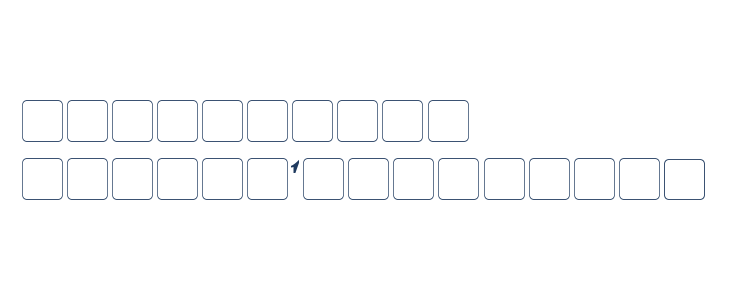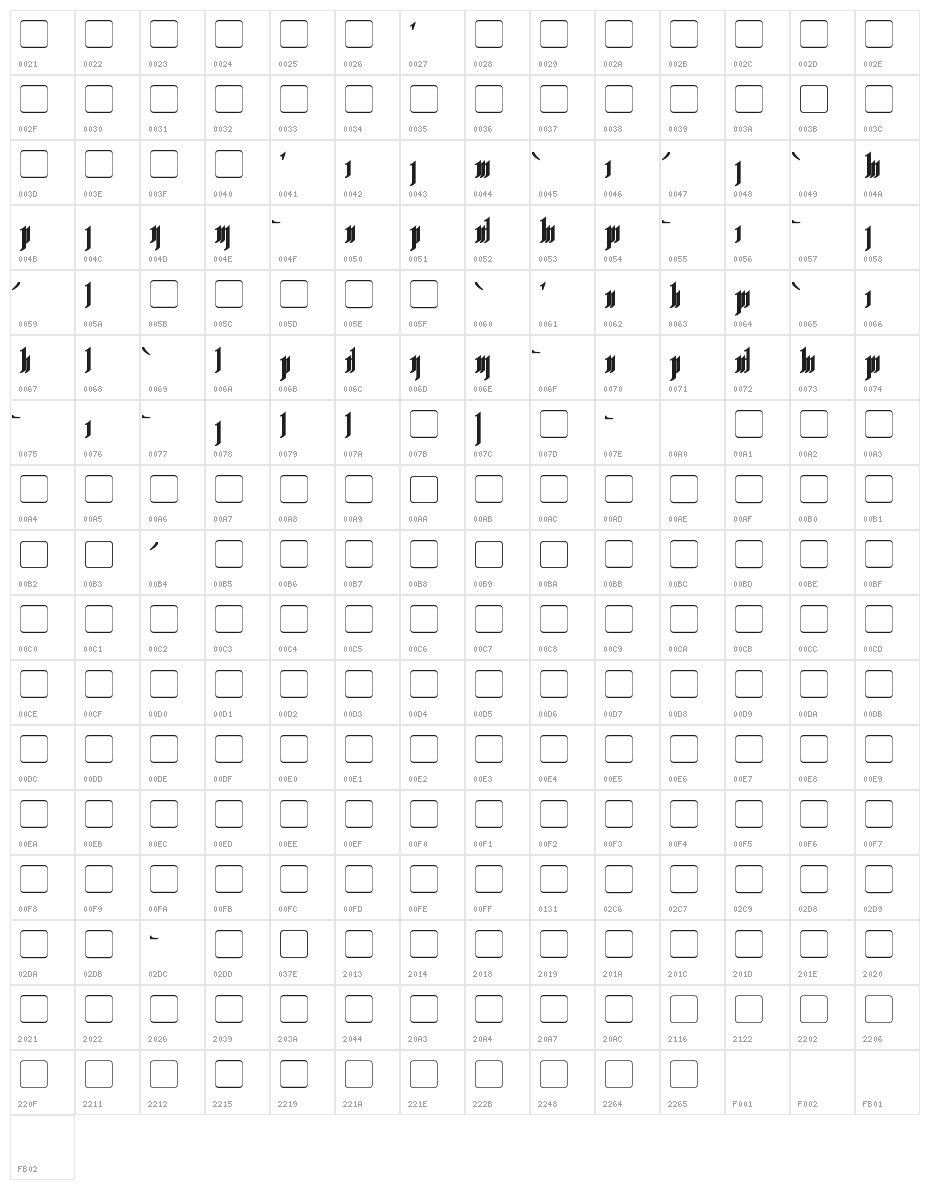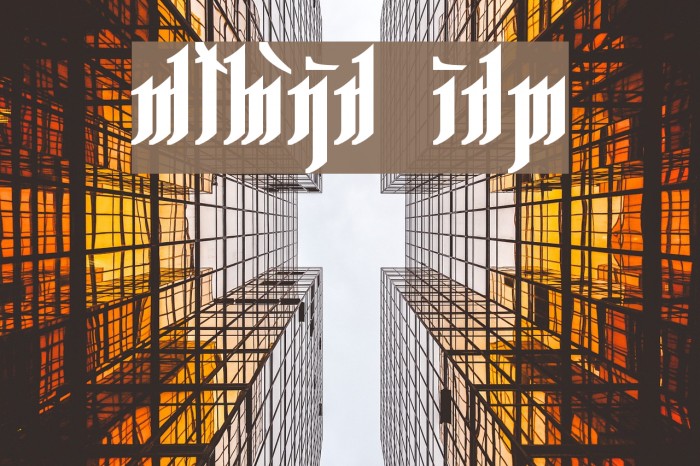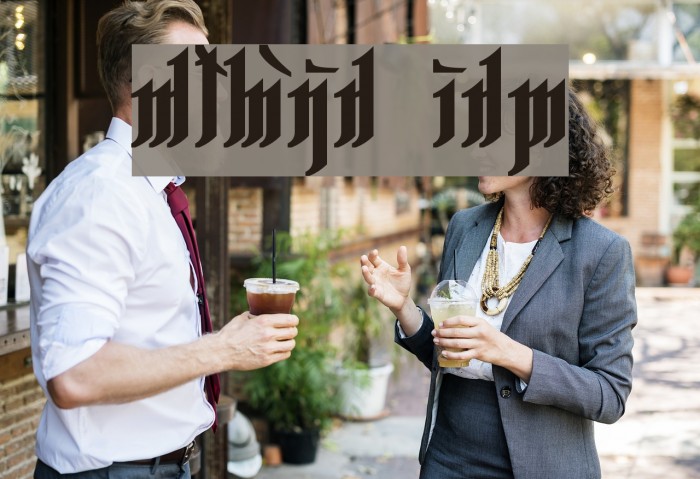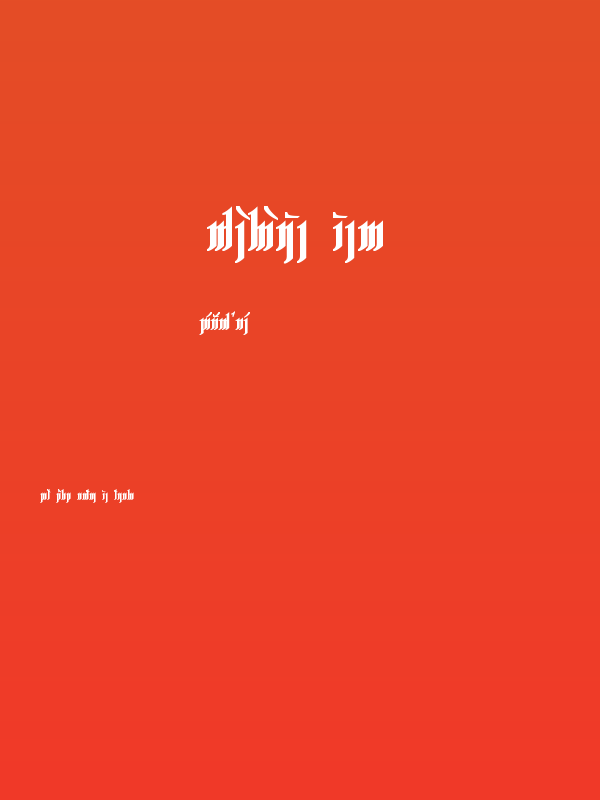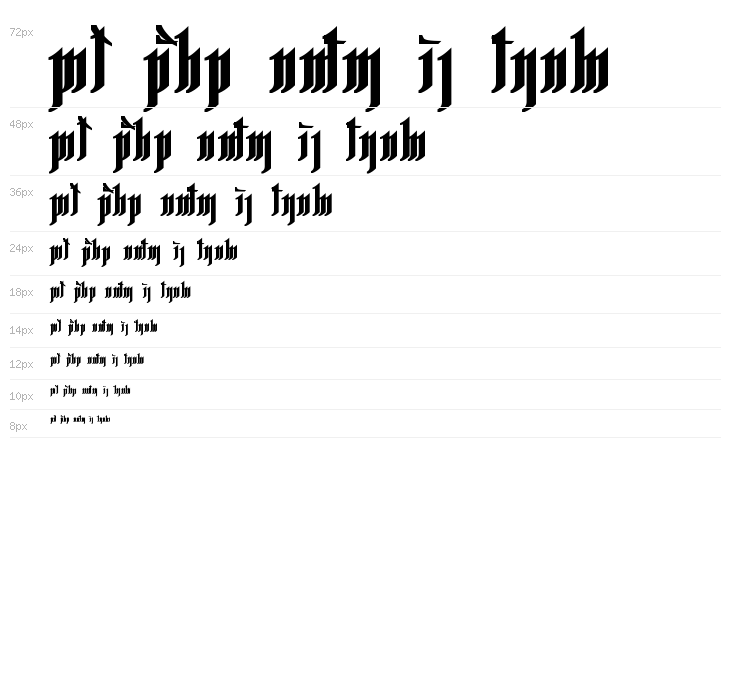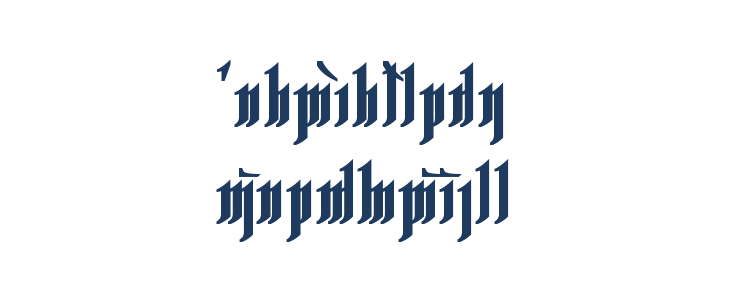
Rhesimol Bold Font
Rhesimol Bold Description
This font features a bold, blackletter style with sharp, angular lines and intricate detailing. The characters are highly stylized, reminiscent of traditional Gothic script, with a modern twist. The uppercase letters are tall and imposing, while the lowercase letters maintain a consistent height, creating a uniform appearance. The numerals and special characters are designed to match the ornate style of the alphabet, ensuring a cohesive look across all text. This font's dramatic flair makes it ideal for creating a strong visual impact.
| Proposed Projects | Ideal for use in branding, posters, book covers, and any project requiring a dramatic, Gothic aesthetic. |